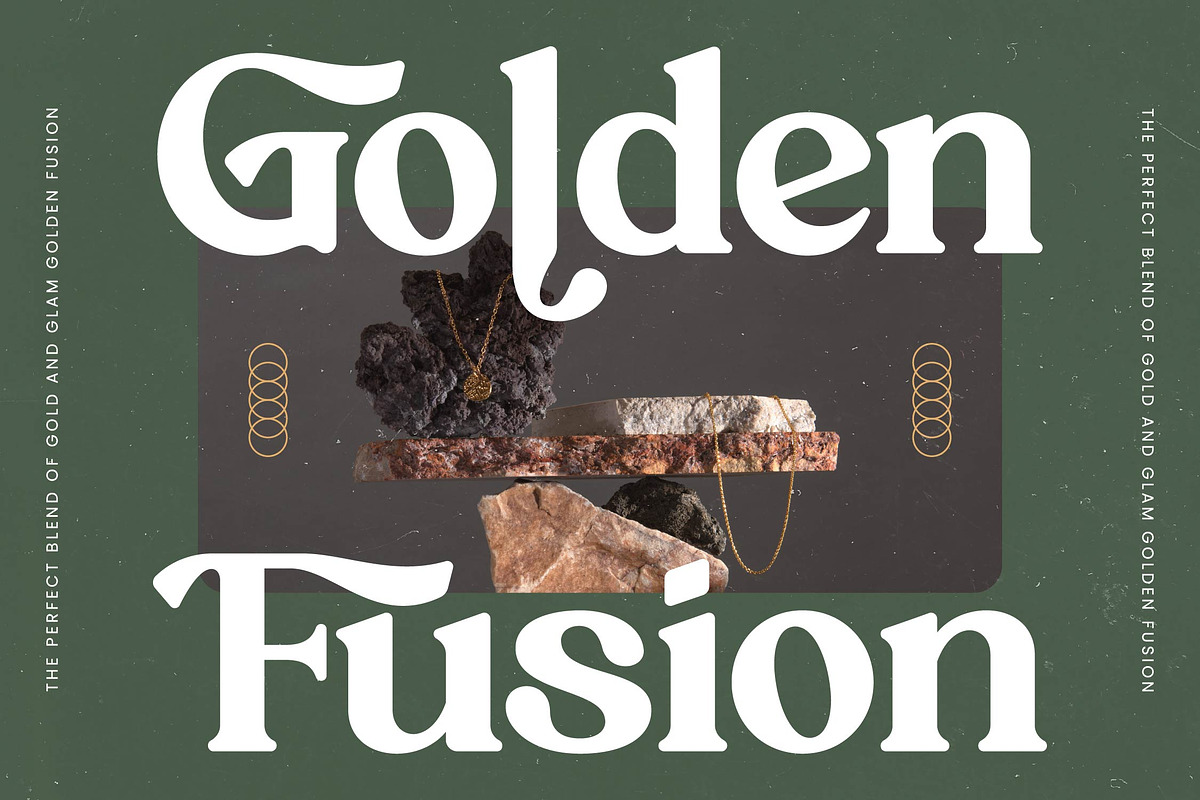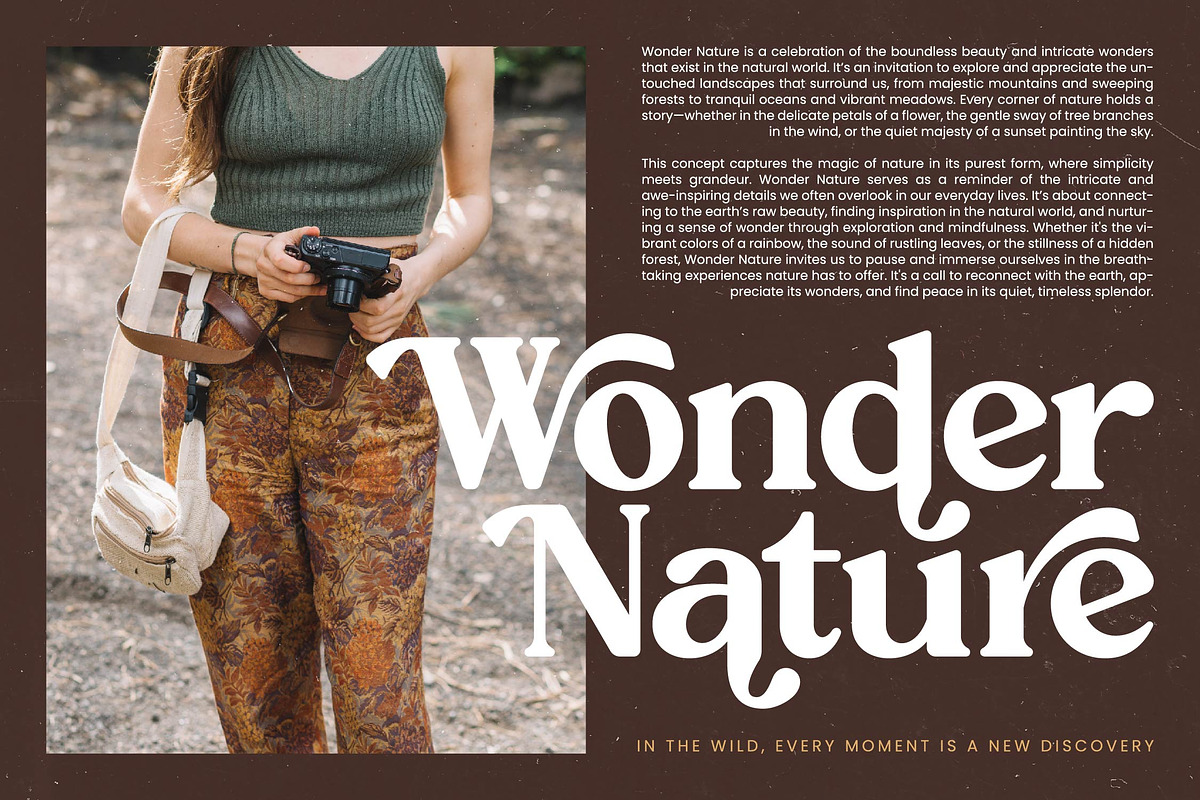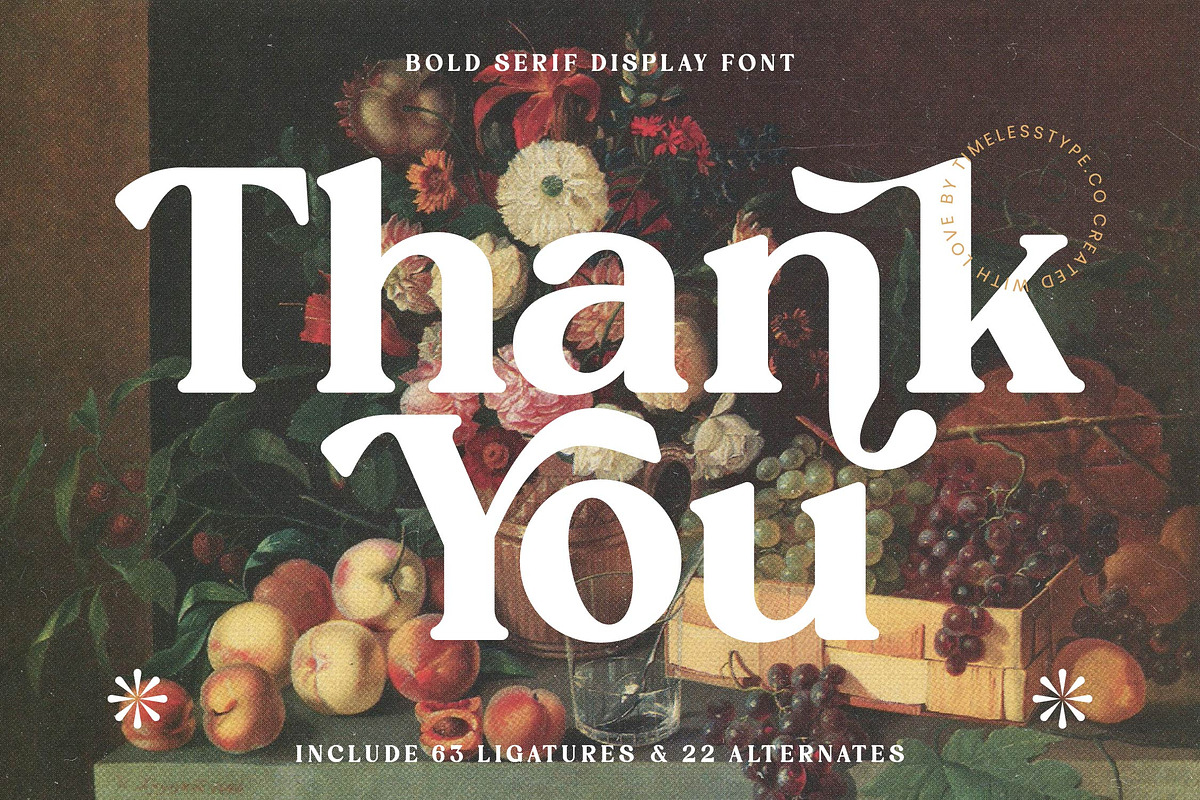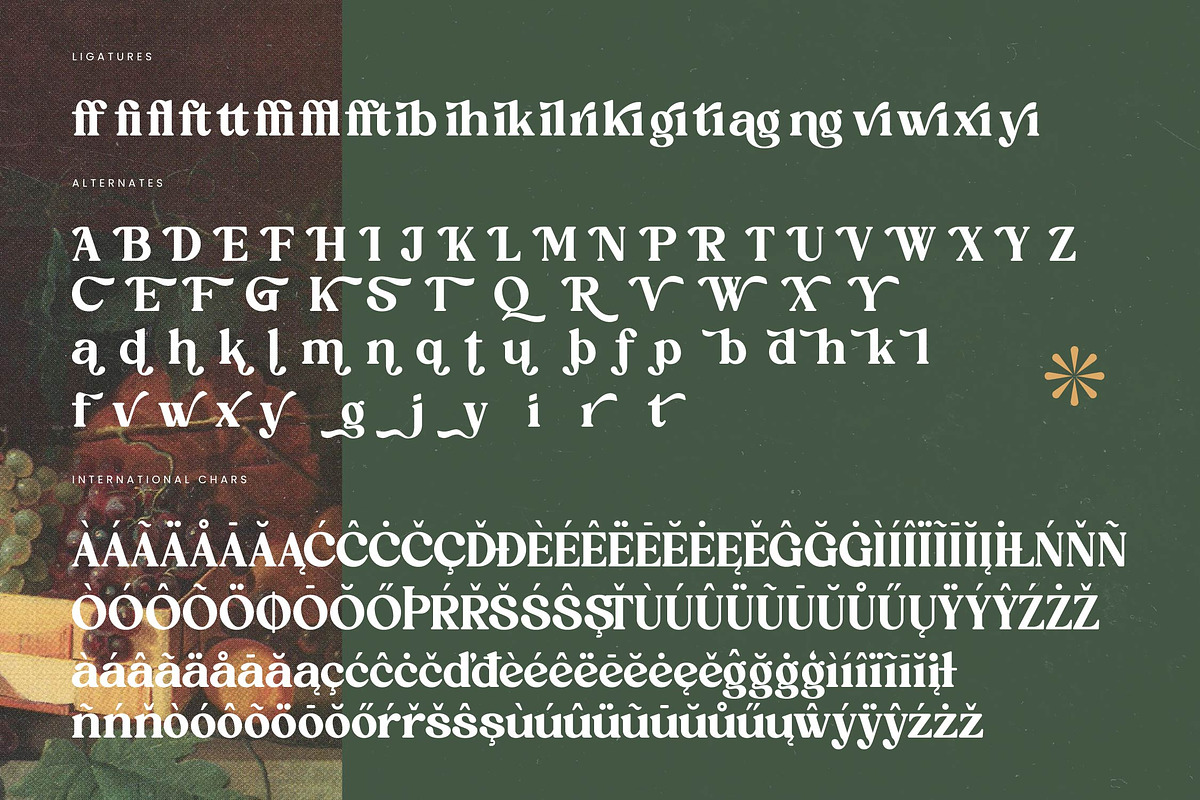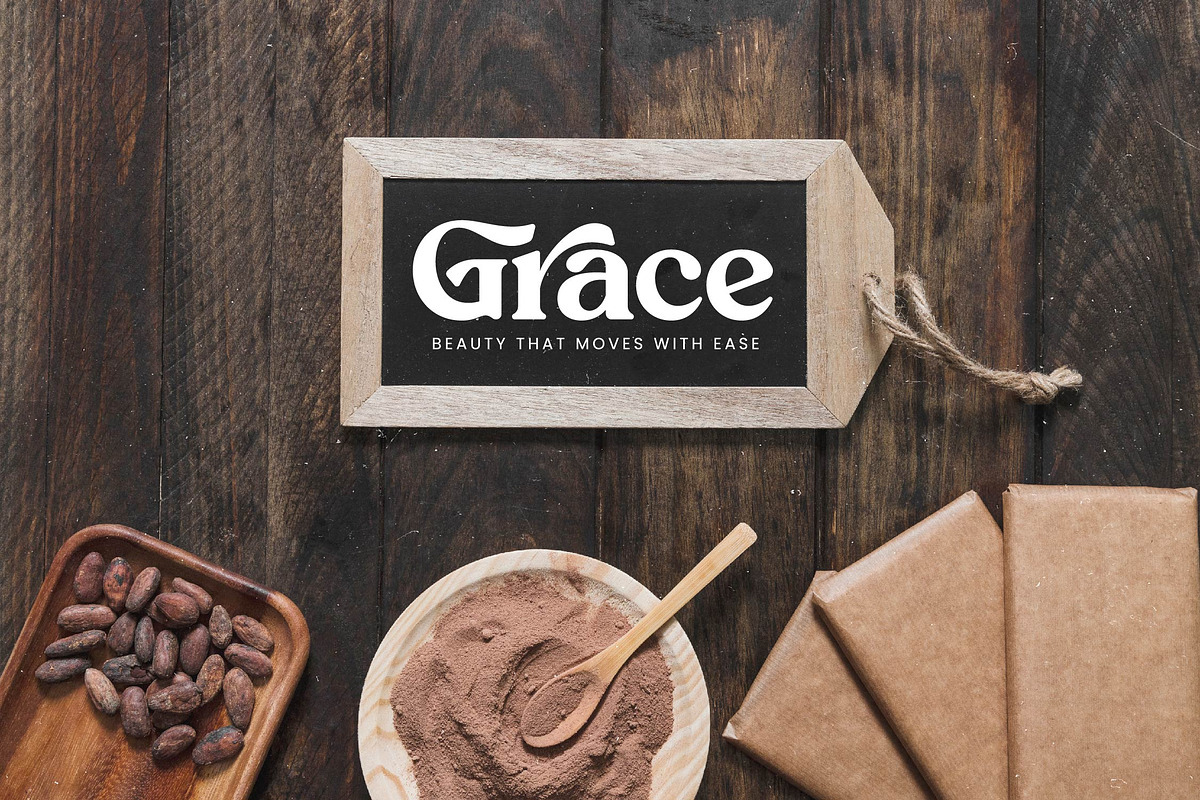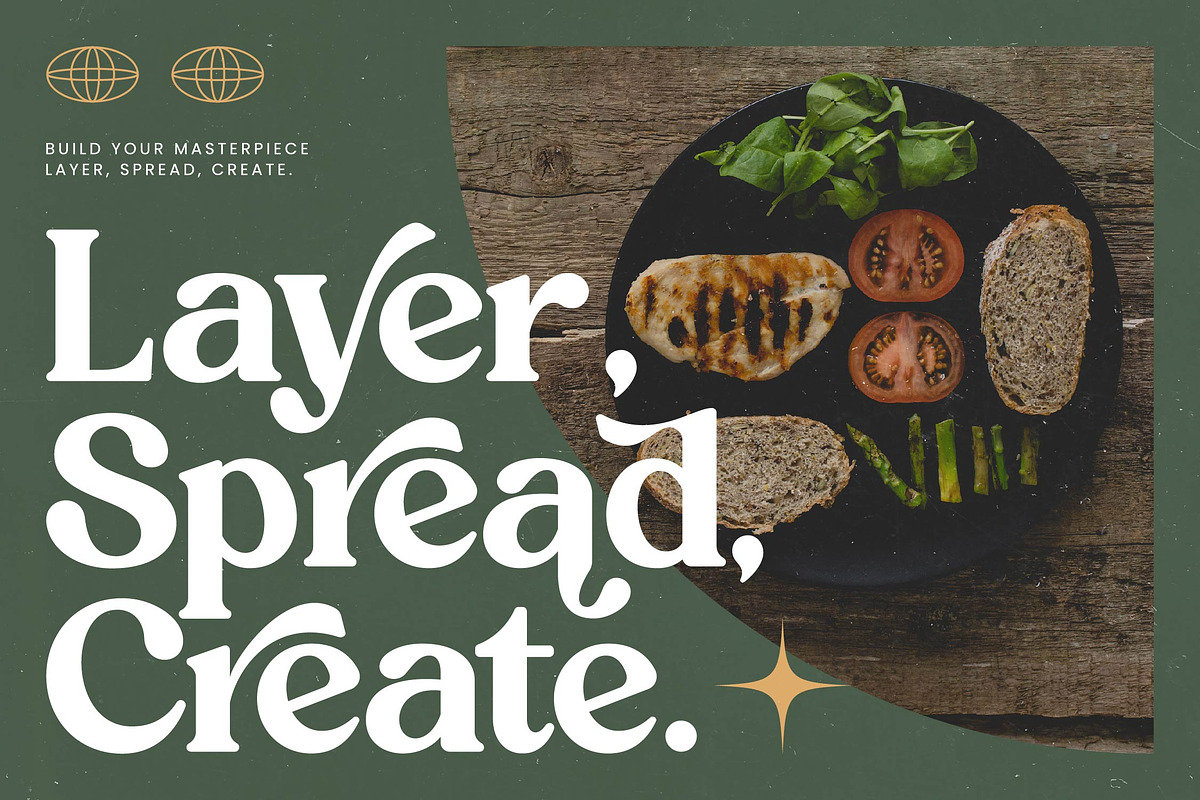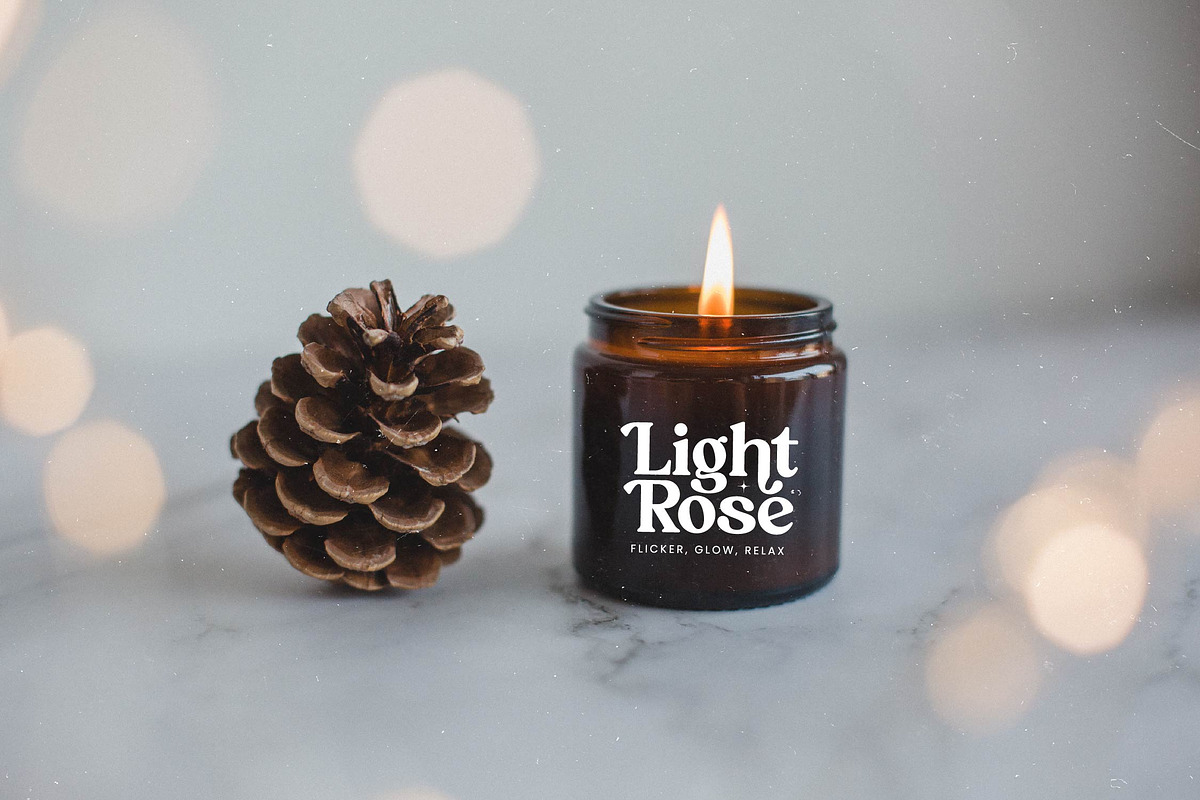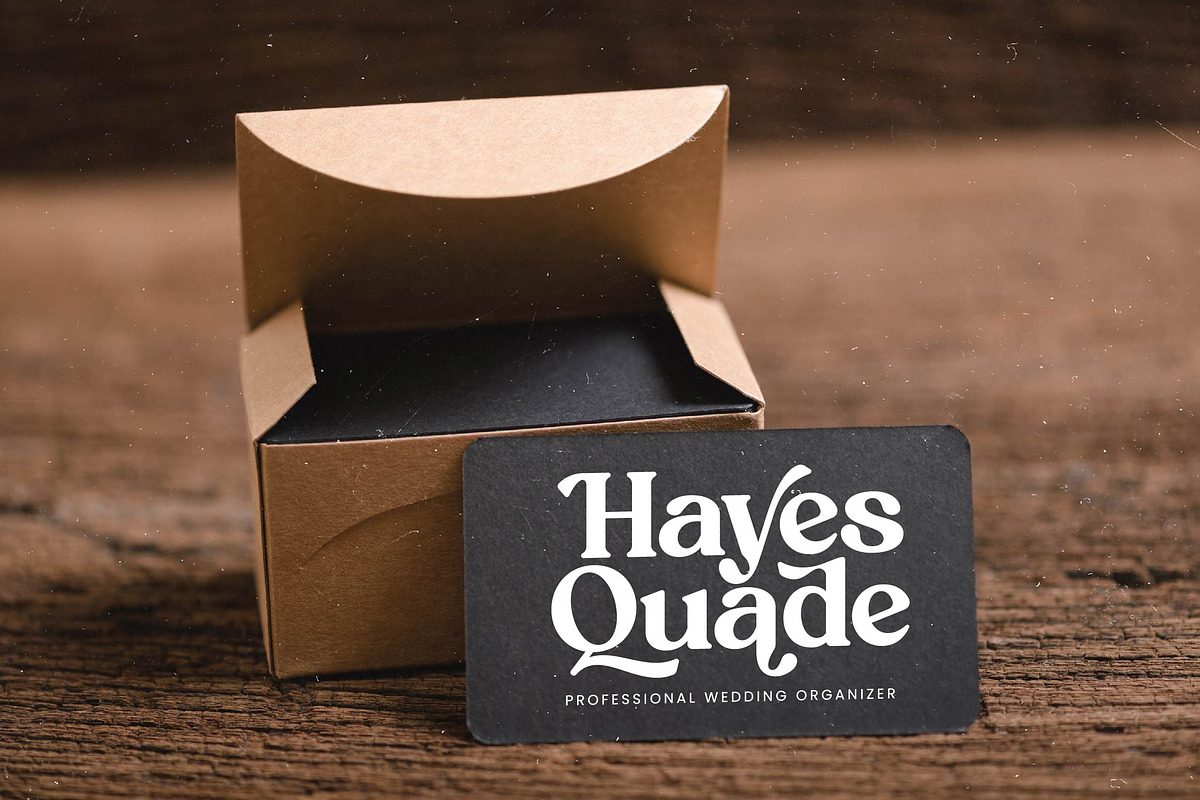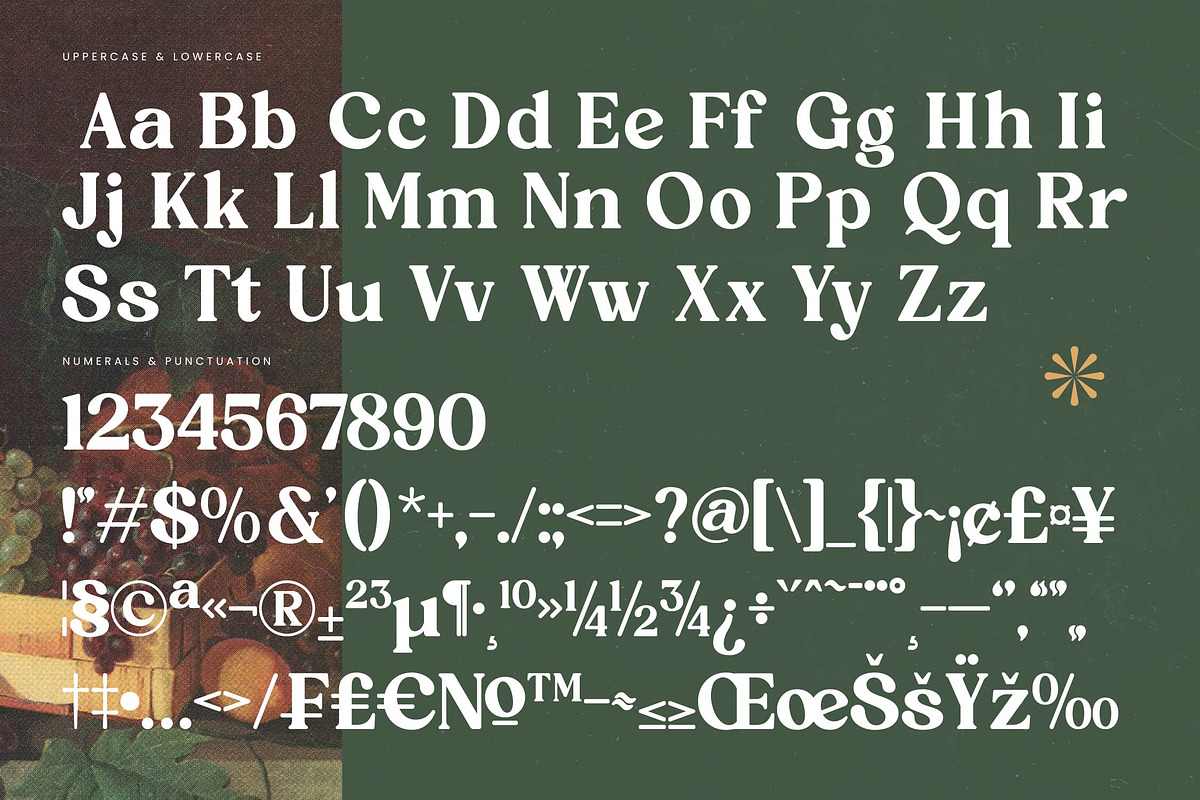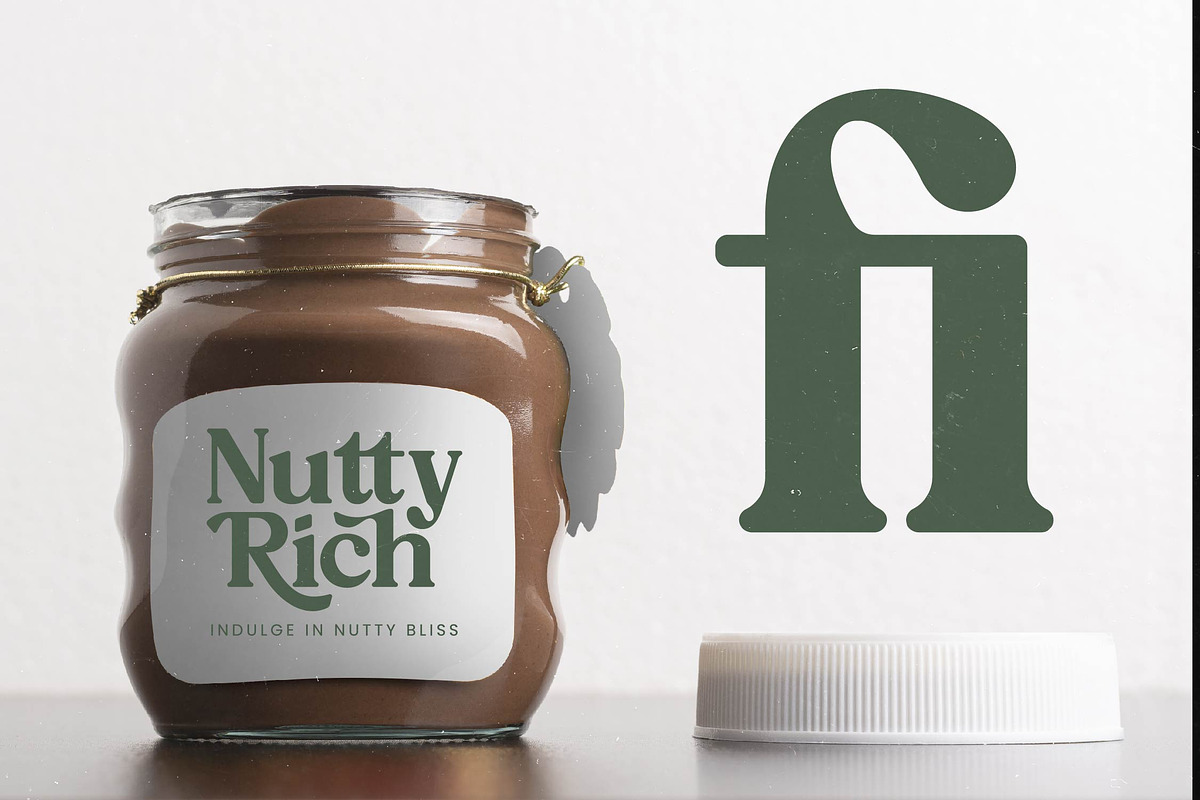
Rustic Delight - Bold Serif Font
Elevate your creative projects with the enchanting presence of Rustic Delight, a typeface designed to capture the essence of timeless elegance. This font is more than just letters; it is an invitation to craft stories that resonate with warmth and artisanal charm.
Drawing inspiration from the lush textures of classical still-life paintings and the organic flow of nature, this font bridges the gap between old-world artistry and contemporary design. It reflects the sun-drenched beauty of a countryside harvest, blending rustic authenticity with a sophisticated, polished finish.
This modern serif display typeface commands attention through its luxury typography and high-contrast serif strokes. It is the ultimate editorial font for creators seeking a high-end branding impact that feels both approachable and exclusive.
Perfectly aligned with the modern serif trend, this typeface meets the demand for editorial display fonts that tell a story. Its character-driven typography ensures your work stands out in a market saturated with minimalism, adding a soulful touch to every layout.
Transform your logo design and branding identities with a touch of organic grace, making it an ideal choice for editorial layouts or premium packaging. From romantic wedding stationery to high-end fashion lookbooks, this font adapts beautifully to any project requiring a sophisticated voice.
Unlock endless creative possibilities with over 63 unique ligatures and 22 stylish alternates that allow for custom-tailored text. The font also includes full multilingual support and a wide range of international characters, ensuring your message reaches a global audience with ease.
- Ligature 63 Alternate 22